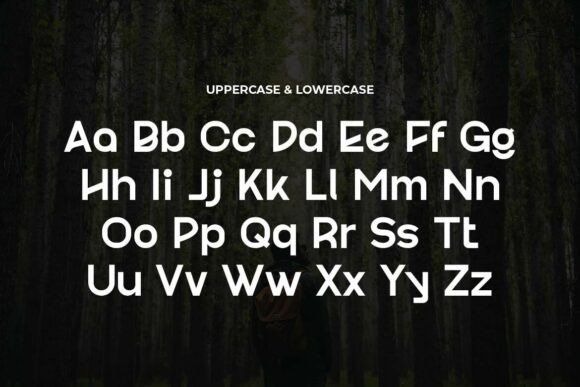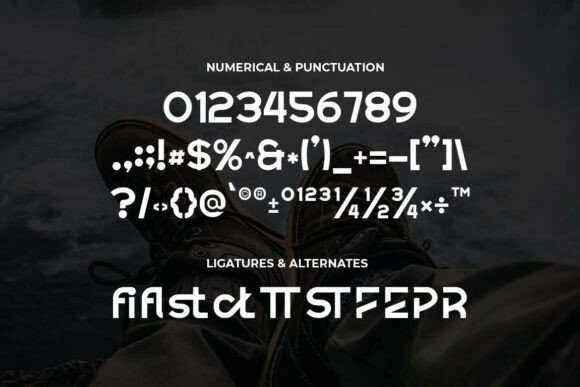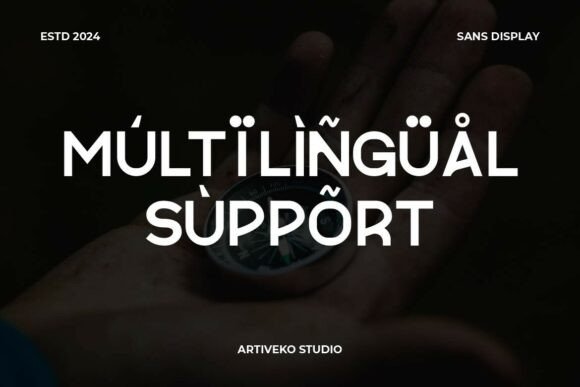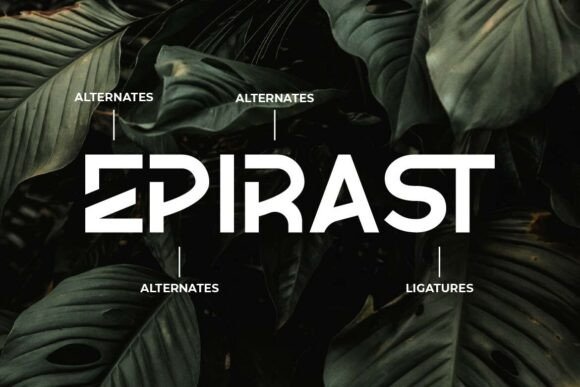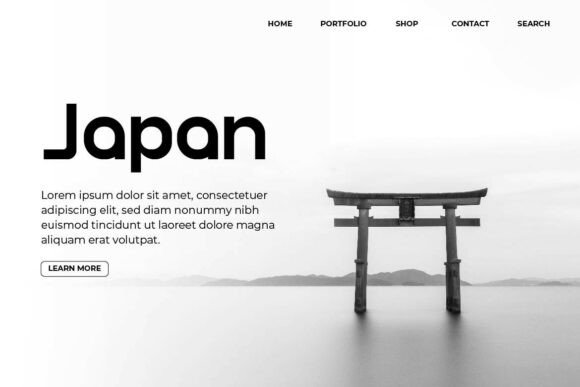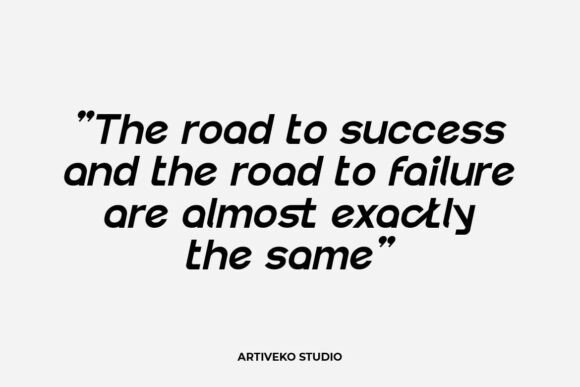
Introducing Diggit Font: The Ultimate Sans Serif for Modern Visual Communication
In the world of typography, a font can make or break the visual identity of a brand. With the ever-growing demand for modern and versatile typefaces, Diggit Font has emerged as a game-changer. Designed with precision and creativity, Diggit is a sharp and versatile sans serif font that has been crafted to elevate modern visual communication.
Clean Lines, Minimalistic Style, and Balanced Proportions
Diggit’s design is rooted in simplicity and elegance. Its clean lines, minimalistic style, and balanced proportions make it an ideal choice for designers seeking a font that exudes professionalism and clarity. The font’s sans serif design ensures that it remains uncluttered and easy to read, even at smaller font sizes.
Versatility Across Multiple Media
One of the standout features of Diggit Font is its versatility. Whether you’re working on branding, editorial design, web interfaces, packaging, or social media content, Diggit delivers exceptional results. Its adaptability makes it an excellent choice for designers who need a font that can seamlessly transition across various mediums.
Key Features of Diggit Font
- Clean and Minimalistic Design: Diggit’s sleek design ensures that your content remains uncluttered and easy to read.
- Balanced Proportions: The font’s balanced proportions make it perfect for body text, headings, and titles.
- Sharp and Versatile: Diggit’s sharp lines and versatile design make it suitable for a wide range of applications.
- Professionalism and Clarity: The font’s clean design and balanced proportions ensure that your content is conveyed with professionalism and clarity.
Applications of Diggit Font
Diggit Font is an excellent choice for various design applications, including:
- Branding: Establish a strong visual identity with Diggit’s clean and professional design.
- Editorial Design: Use Diggit to create visually appealing and easy-to-read content for magazines, newspapers, and books.
- Web Interfaces: Enhance user experience with Diggit’s clean and legible design, perfect for websites and mobile applications.
- Packaging: Make a lasting impression with Diggit’s bold and eye-catching design, ideal for product packaging.
- Social Media Content: Elevate your social media presence with Diggit’s modern and engaging design.
Why Choose Diggit Font?
In a crowded market, Diggit Font stands out for its unique combination of style, versatility, and professionalism. Here are a few reasons why designers and crafters should consider Diggit:
- Unique Design: Diggit’s clean lines and minimalistic style set it apart from other sans serif fonts.
- High Legibility: The font’s balanced proportions and clean design ensure that it remains easy to read, even at smaller font sizes.
- Cross-Platform Compatibility: Diggit Font is designed to work seamlessly across various media and devices.
Diggit Font is a powerful tool for designers and crafters seeking a modern, versatile, and professional sans serif font. Its clean lines, minimalistic style, and balanced proportions make it an excellent choice for a wide range of applications. Whether you’re working on branding, editorial design, web interfaces, packaging, or social media content, Diggit Font is sure to elevate your visual communication.
With its unique design, high legibility, and cross-platform compatibility, Diggit Font is an excellent addition to any designer’s toolkit. So why settle for an ordinary font when you can make a statement with Diggit?